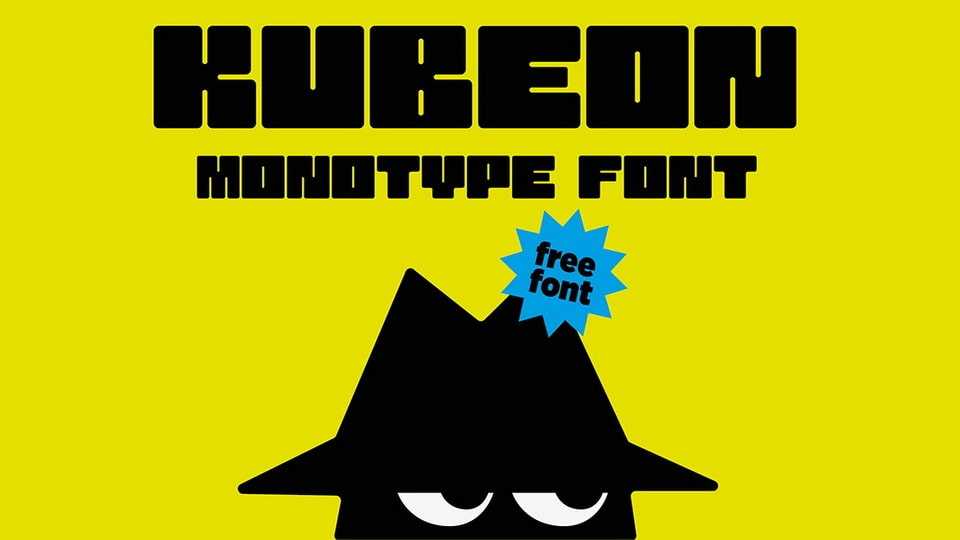
Download Kubeon font, more than just a typeface, it is a visual statement, a strong presence that immediately captures attention. As a monospaced font, Kubeon imposes a rare rigor and homogeneity, while standing out with its unique construction.